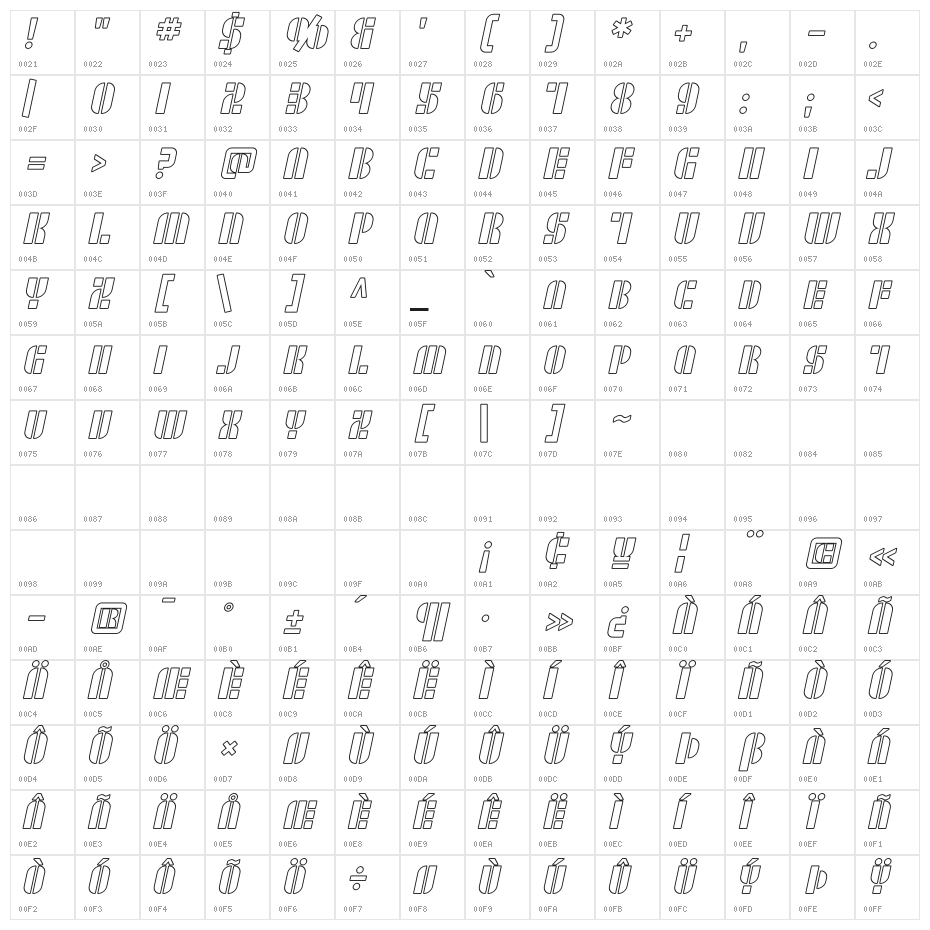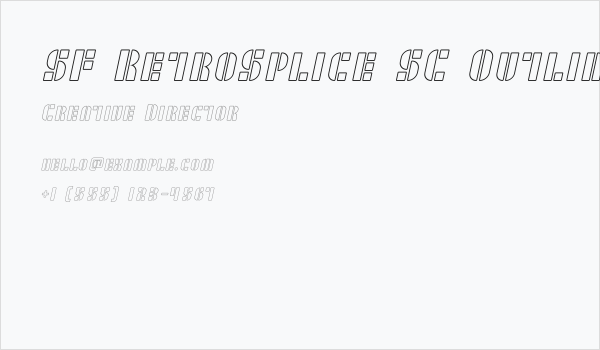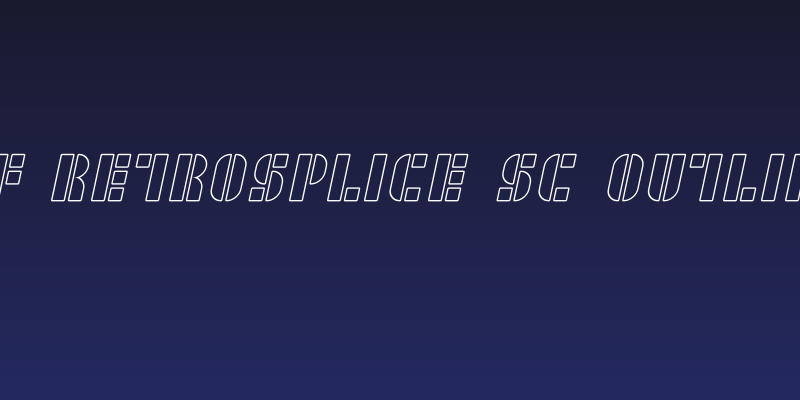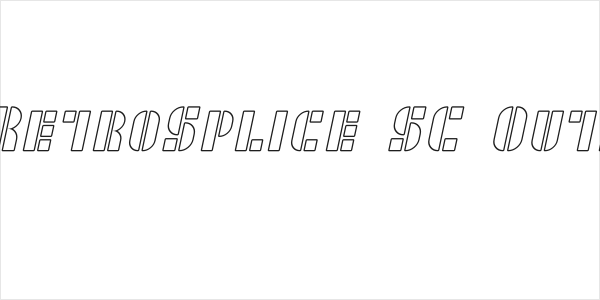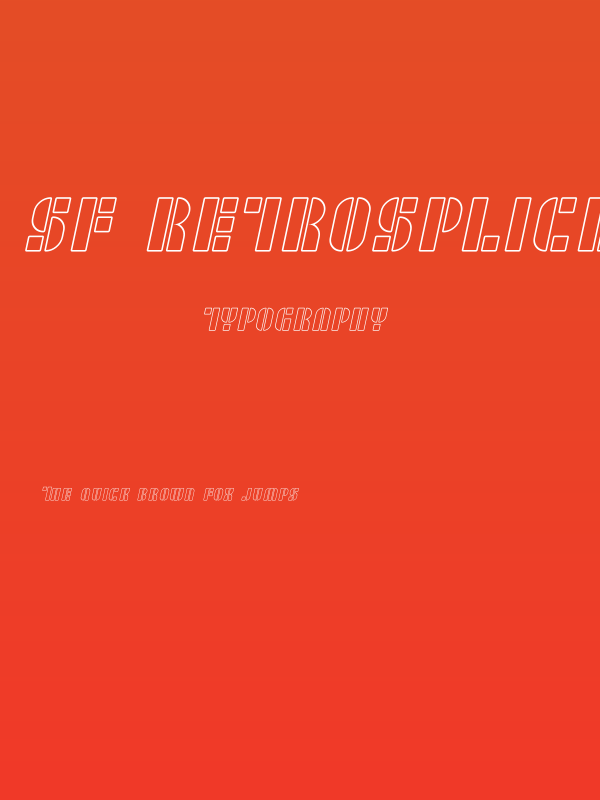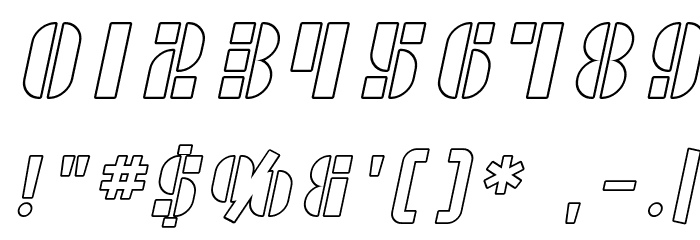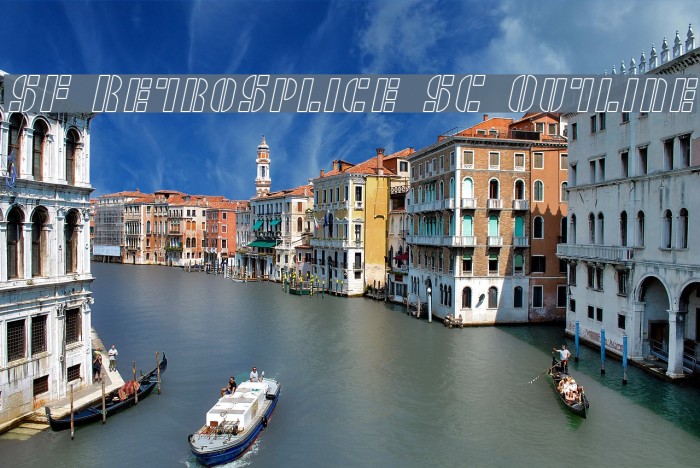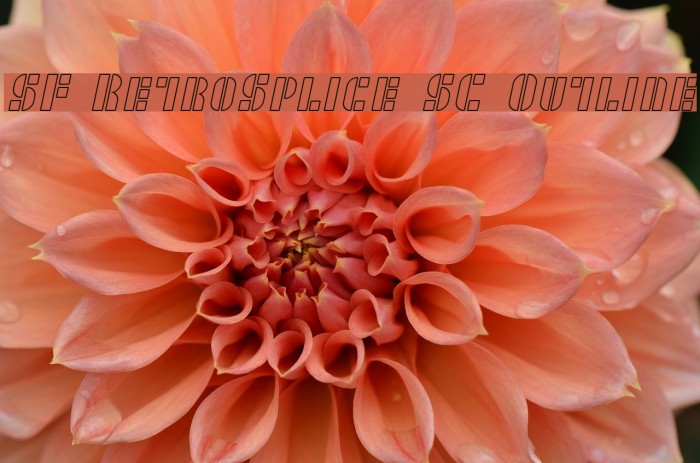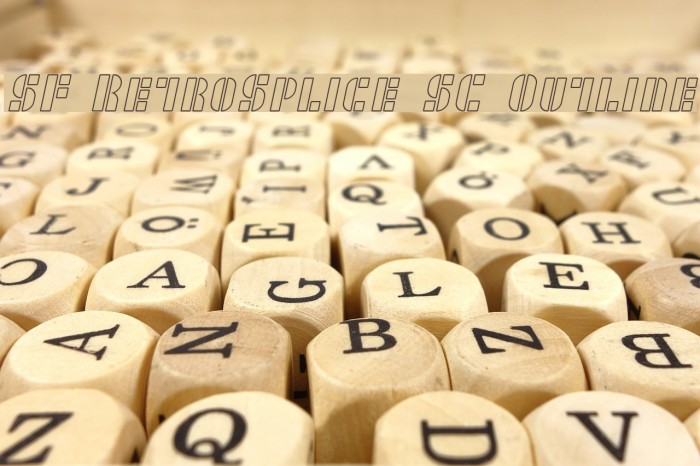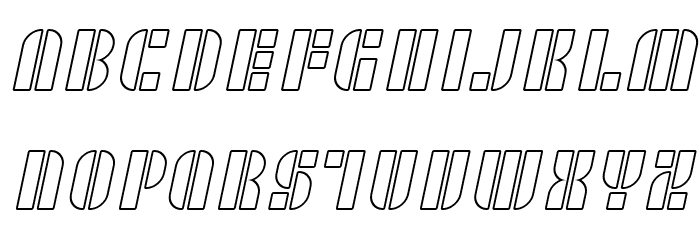
SF RetroSplice SC Outline Font
SF RetroSplice SC Outline Description
This font features a unique, retro-inspired design with an outline style that gives it a distinct, eye-catching appearance. The characters are constructed with a series of parallel lines that create a sense of depth and movement. Each letter and number is designed with a geometric precision, offering a modern twist on classic typography. The font's outline nature makes it ideal for creating bold, impactful statements while maintaining a sense of elegance and sophistication. It is particularly suited for projects that require a vintage or nostalgic feel, yet it remains versatile enough for contemporary applications.
| Overall Style | Retro, Modern |
| Proposed Projects | Ideal for retro-themed posters, branding, logos, and headlines that require a bold, nostalgic touch. |